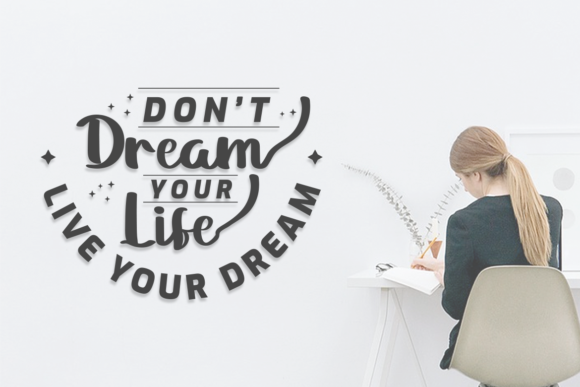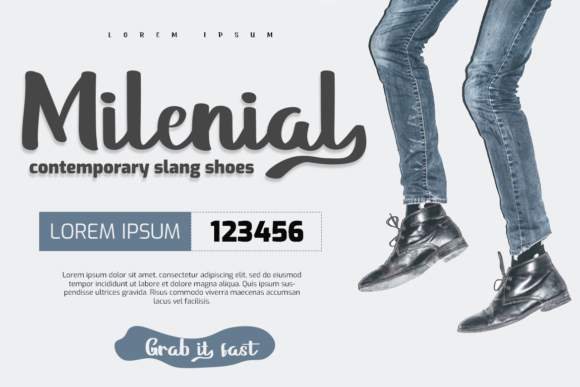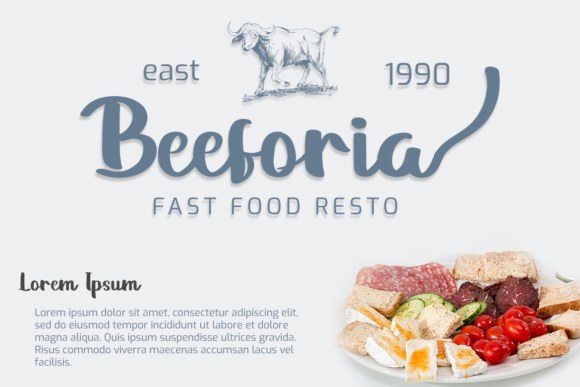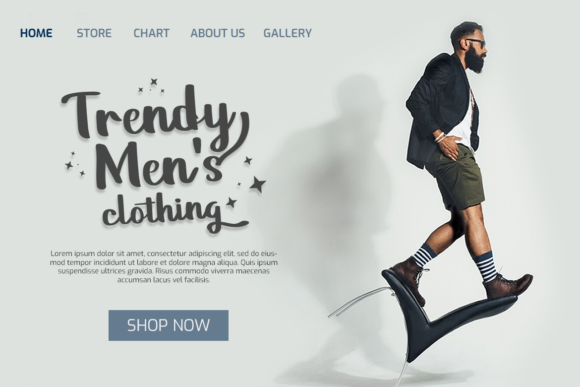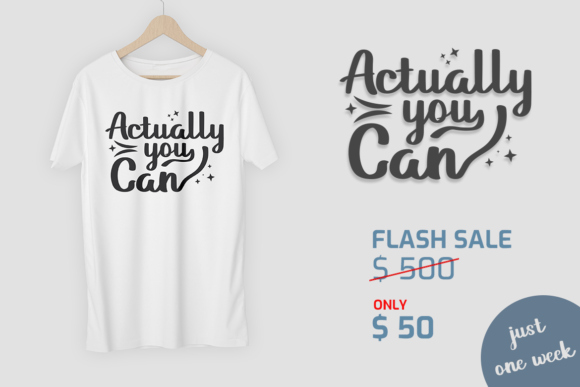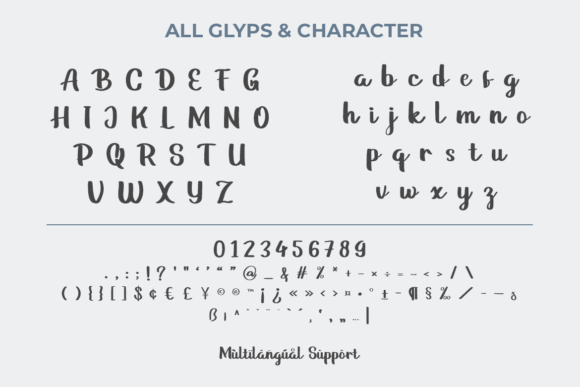
Gathers Font: Elevate Your Designs with a Modern Script Font
Are you a designer or crafter looking for a font that can add a touch of elegance and sophistication to your projects? Look no further than Gathers Font, a modern script font that is sure to turn any creative idea into a standout. With its unique and enchanting look, Gathers Font is the perfect choice for anyone looking to brighten up their crafting projects and take their designs to the next level.
What is Gathers Font?
Gathers Font is a modern script font that is designed to add a touch of elegance and sophistication to any design project. Its unique and flowing lines make it perfect for a variety of applications, from crafting and scrapbooking to branding and advertising. With its modern and fresh look, Gathers Font is sure to catch the eye and leave a lasting impression.
Features of Gathers Font
Gathers Font has a number of features that make it an ideal choice for designers and crafters. Some of its key features include:
- Unique and Enchanting Look: Gathers Font has a unique and enchanting look that is sure to turn any creative idea into a standout.
- Modern Script Font: Gathers Font is a modern script font that is perfect for adding a touch of elegance and sophistication to any design project.
- Highly Versatile: Gathers Font is highly versatile and can be used for a variety of applications, from crafting and scrapbooking to branding and advertising.
- Easy to Read: Despite its elegant and sophisticated look, Gathers Font is easy to read and can be used for both headings and body text.
Uses of Gathers Font
Gathers Font is a highly versatile font that can be used for a variety of applications. Some of the most popular uses of Gathers Font include:
- Crafting and Scrapbooking: Gathers Font is perfect for crafting and scrapbooking projects, where its unique and enchanting look can add a touch of elegance and sophistication.
- Branding and Advertising: Gathers Font is also perfect for branding and advertising projects, where its modern and fresh look can help to catch the eye and leave a lasting impression.
- Wedding and Event Planning: Gathers Font is a popular choice for wedding and event planning projects, where its elegant and sophisticated look can add a touch of romance and whimsy.
- Graphic Design: Gathers Font can also be used for a variety of graphic design projects, from brochures and flyers to posters and banners.
Tips for Using Gathers Font
Here are a few tips for using Gathers Font in your design projects:
- Use it Sparingly: Gathers Font is a bold and eye-catching font, so it’s best to use it sparingly to avoid overwhelming the reader.
- Pair it with Other Fonts: Gathers Font can be paired with other fonts to create a unique and interesting look.
- Experiment with Different Sizes: Gathers Font can be used at a variety of sizes, from large headings to smaller body text.
- Have Fun: Most importantly, have fun with Gathers Font and experiment with different designs and applications.
Gathers Font is a modern script font that is sure to turn any creative idea into a standout. With its unique and enchanting look, Gathers Font is the perfect choice for designers and crafters looking to add a touch of elegance and sophistication to their projects. Whether you’re working on a crafting or scrapbooking project, or a branding or advertising campaign, Gathers Font is a versatile and effective choice. So why not give it a try and see the difference it can make?